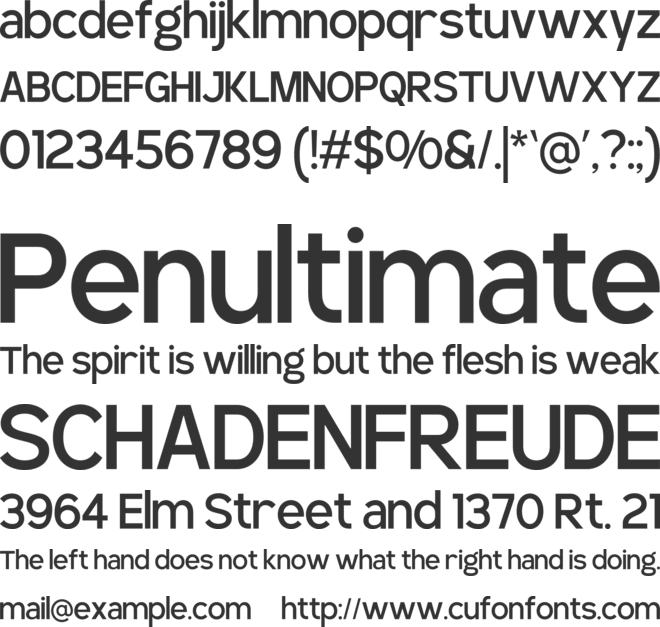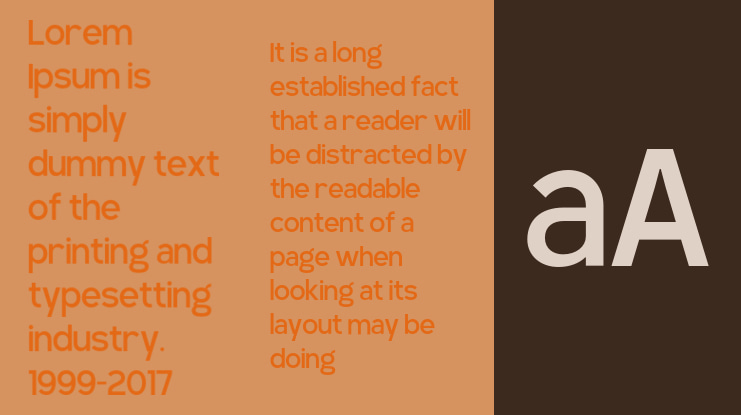
RCL Back One Font
Bakhrudin Ja'far
Back One is a bold modern sans-serif font family designed to bring confidence, clarity, and strong visual impact to your designs. Built with wide proportions, clean geometry, and balanced spacing, Back One delivers a powerful presence while remaining highly readable and approachable.